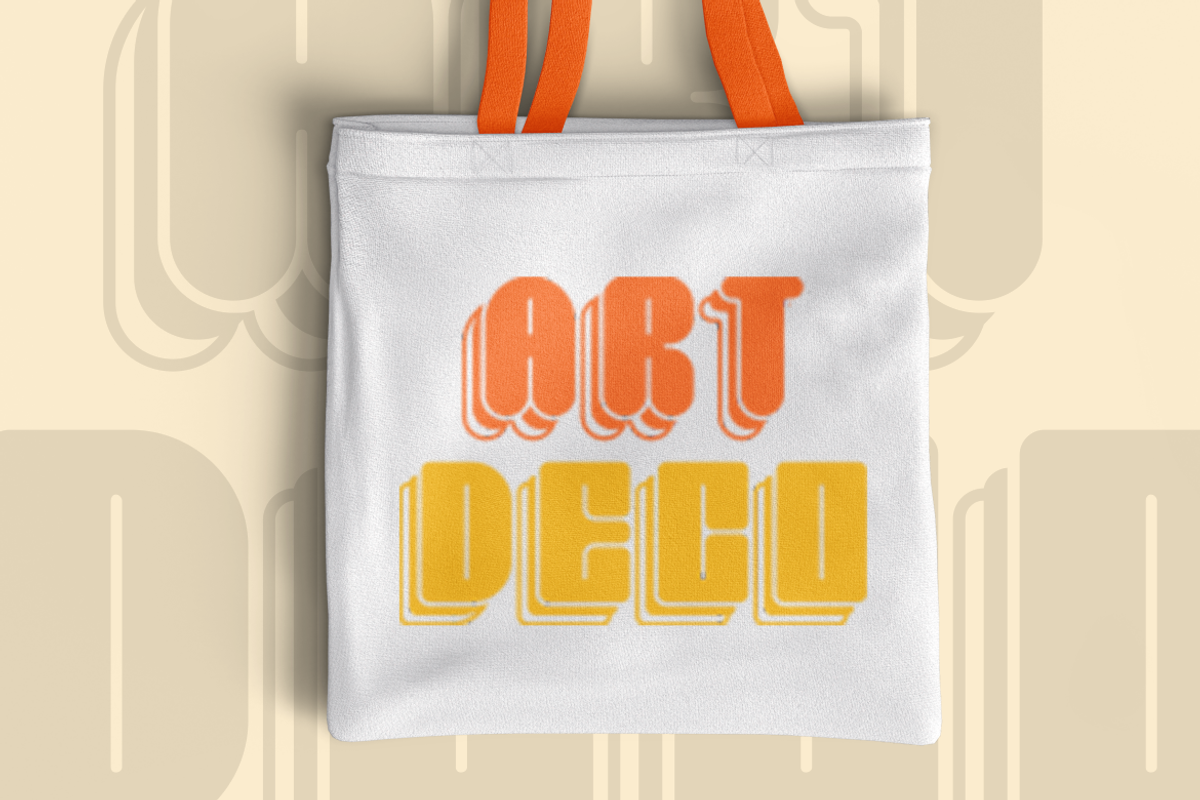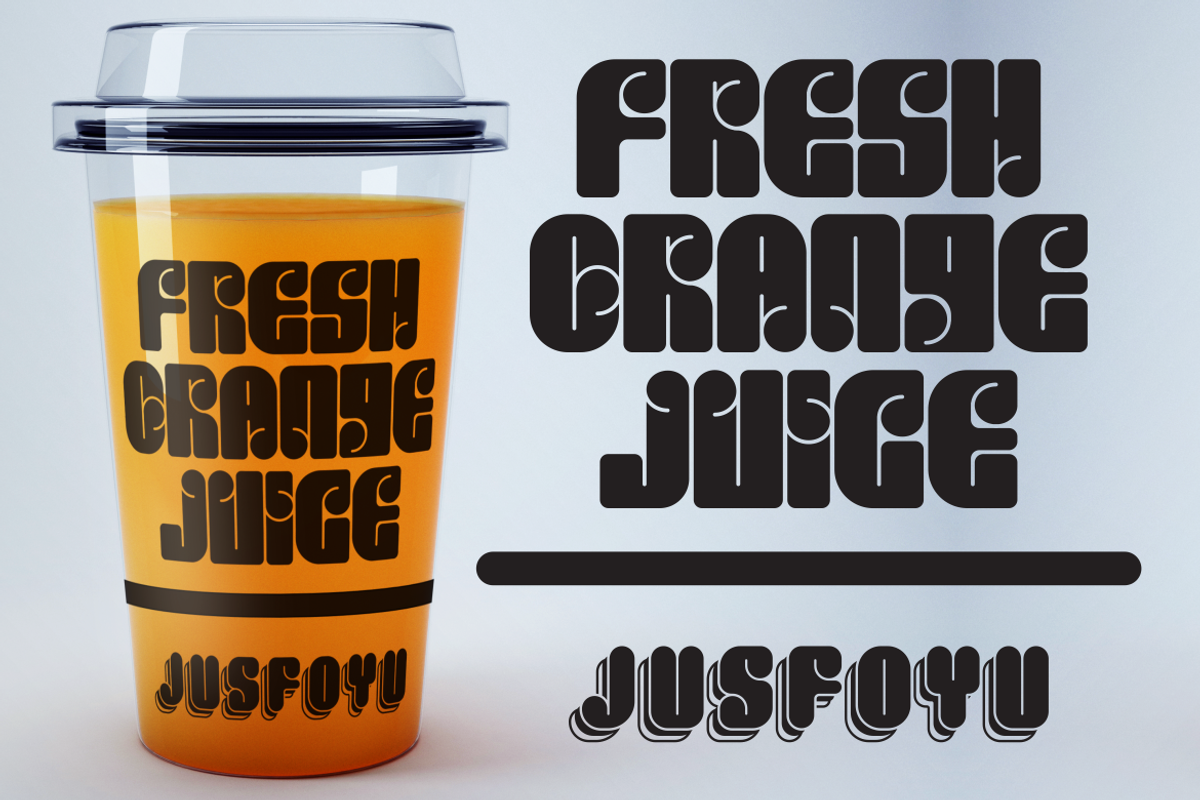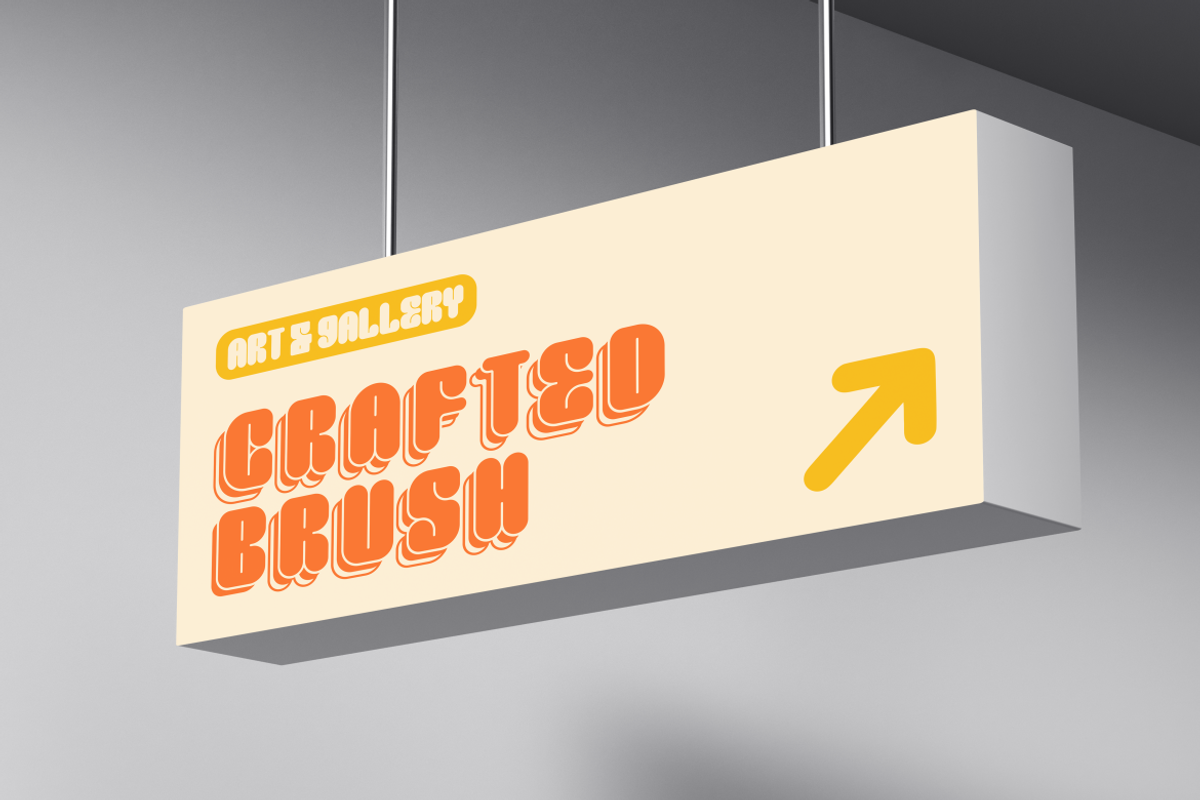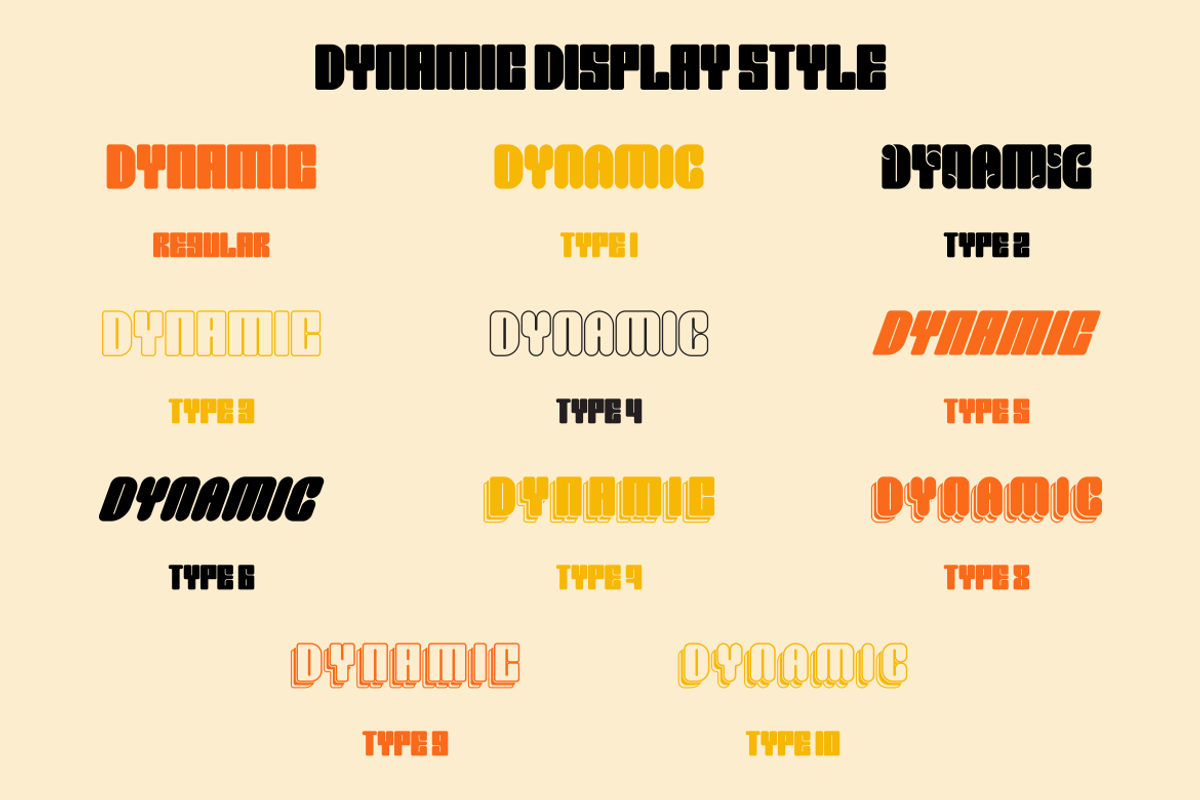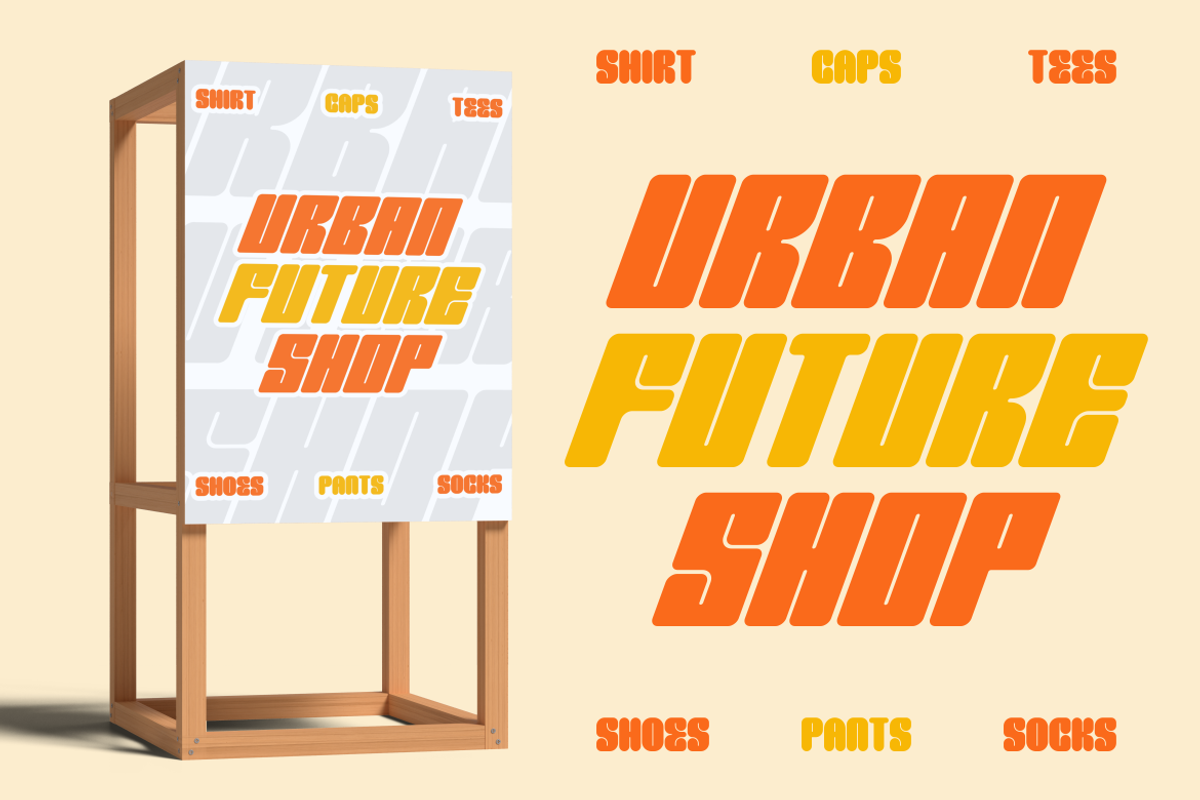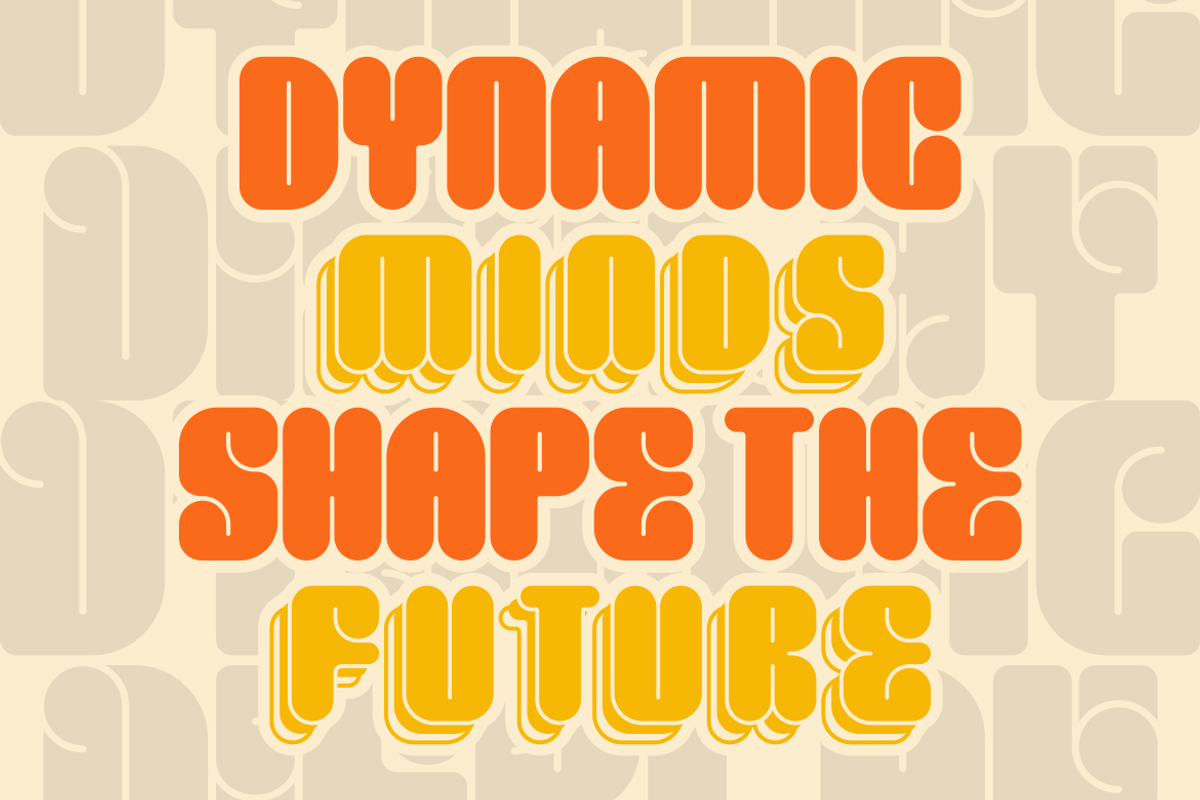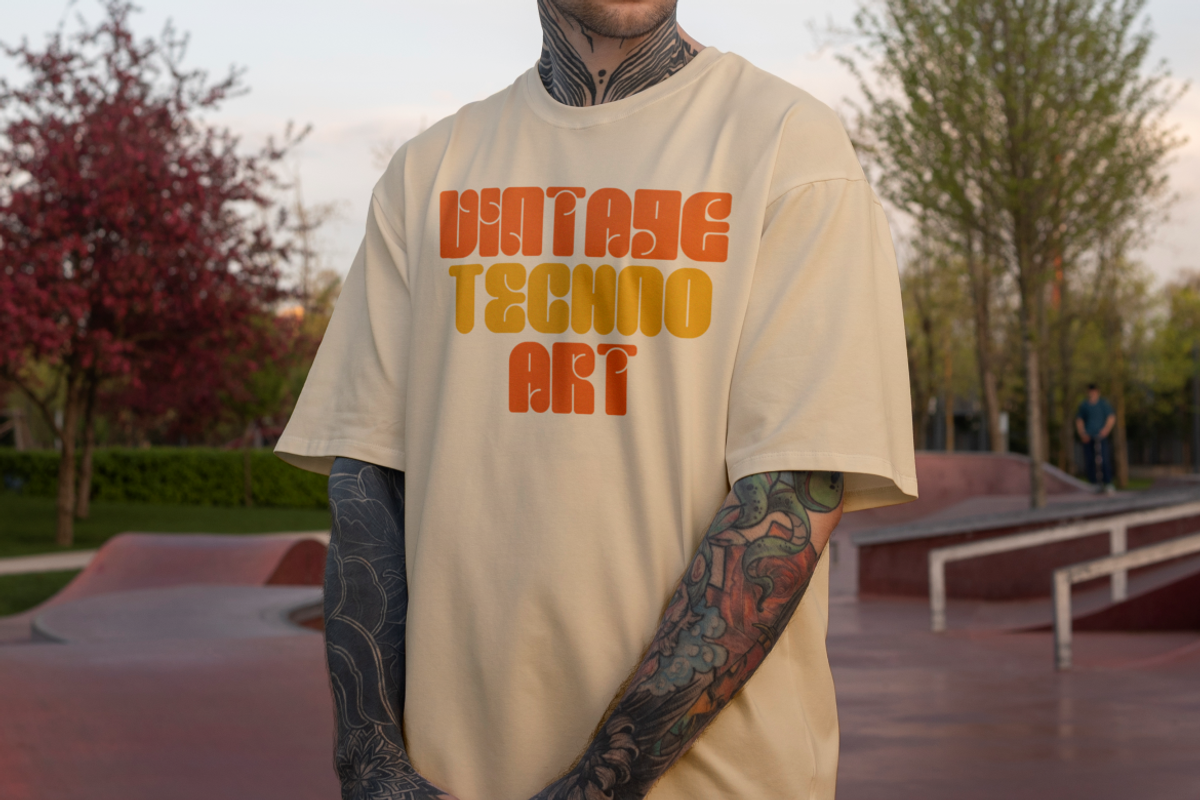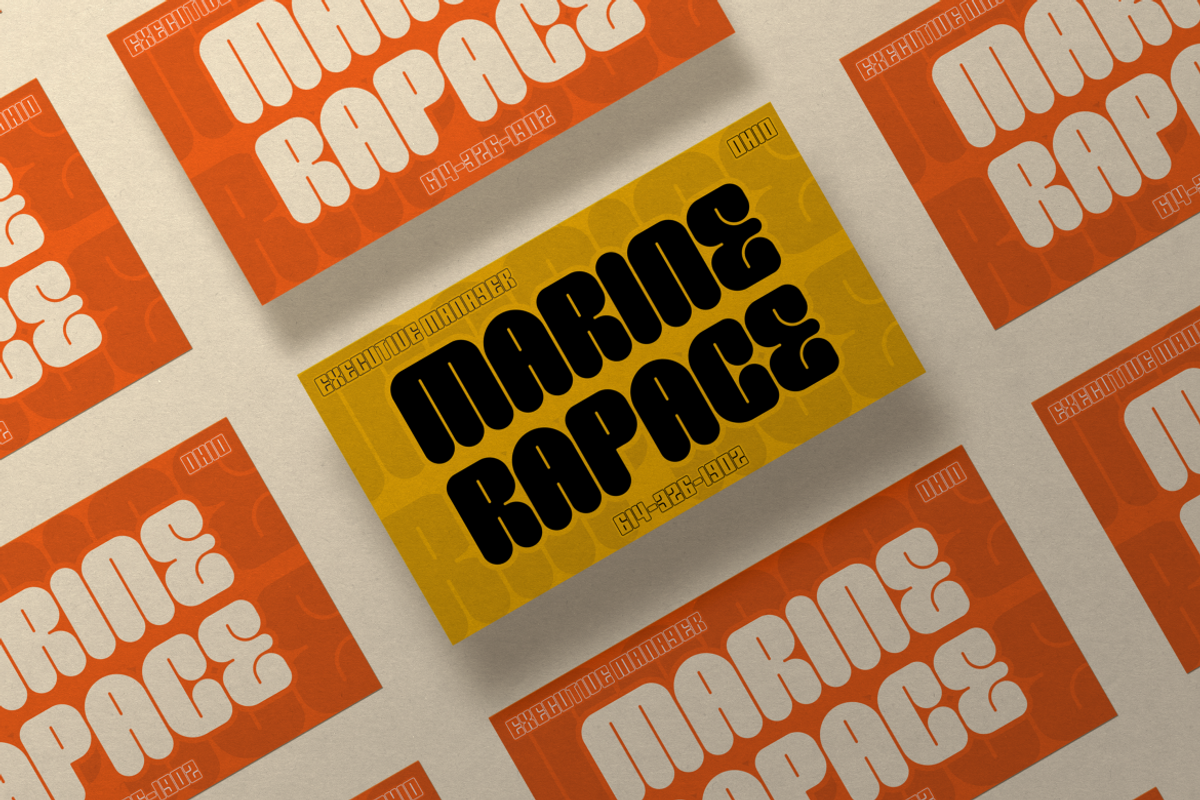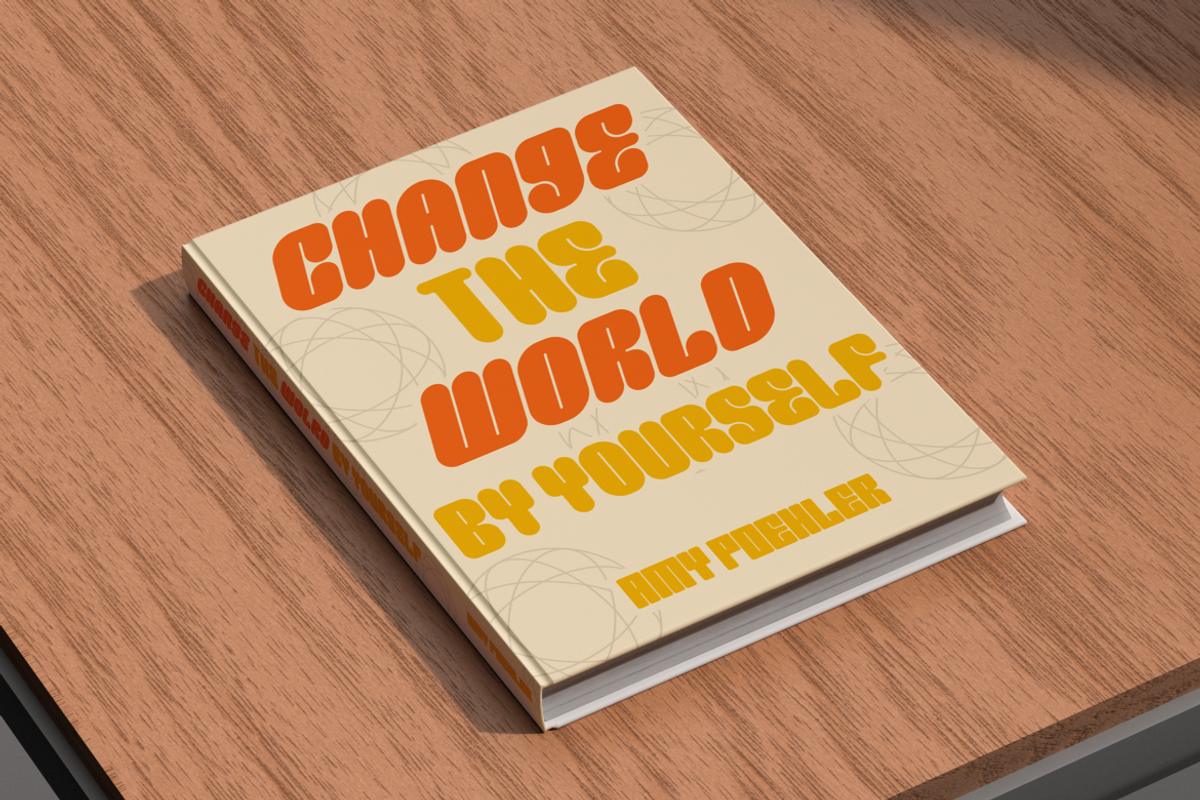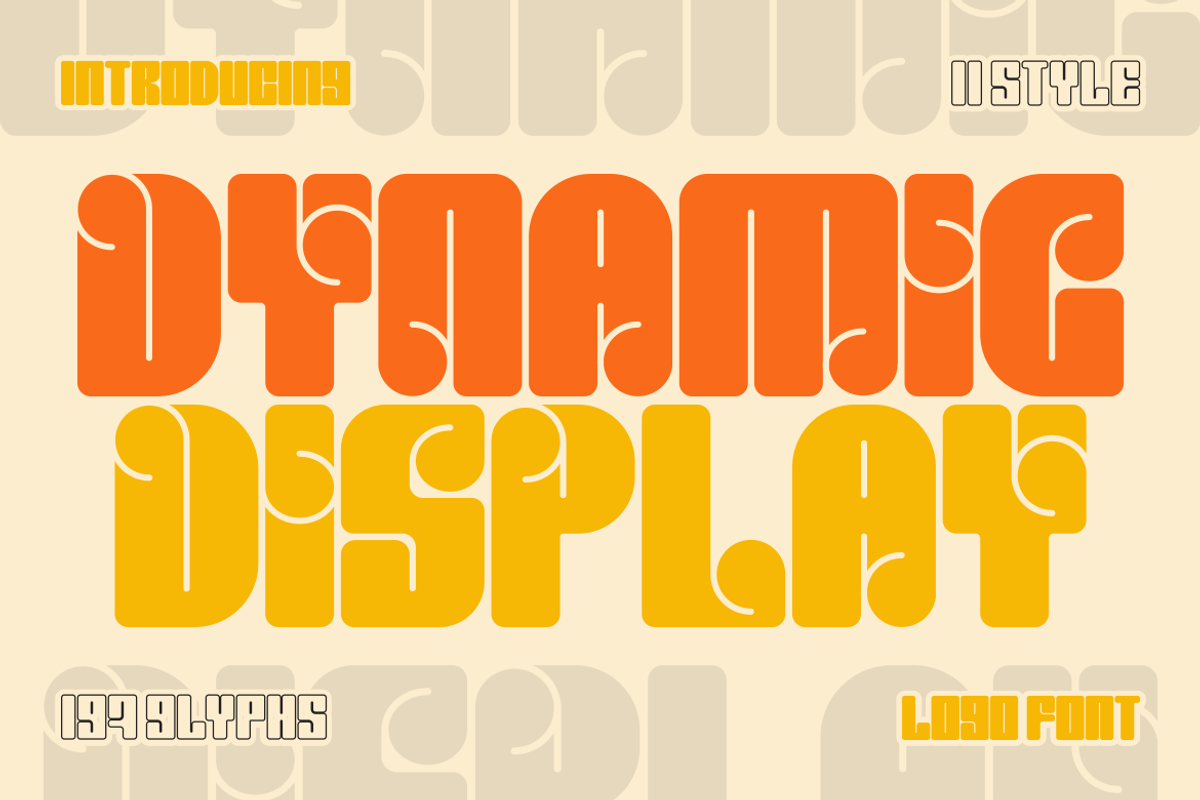
Dynamic Display - Logo Font
Introducing Dynamic Display - Logo Font: The ultimate game-changer in typography that brings your creative projects to life! With its robust and playful character set, Dynamic Display is designed to make an impact at first glance. This font embodies fun with its psychedelic twist on traditional bold fonts. Each letter boasts unique cut-outs that add depth and movement to your words—perfect for those seeking to inject personality into their brand identity or project title.
Crafted meticulously with versatility in mind, this typeface stretches beyond mere aesthetics. It offers 199 glyphs that cater to diverse design needs, from crafting bespoke logos to spicing up packaging or making your poster titles pop off the page. Whether you’re designing invitations that stand out or branding materials that resonate with energy, creating memorable greeting cards or vibrant stickers, or even publishing children’s books or fashioning eye-catching magazine headlines—Dynamic Display delivers on all fronts.